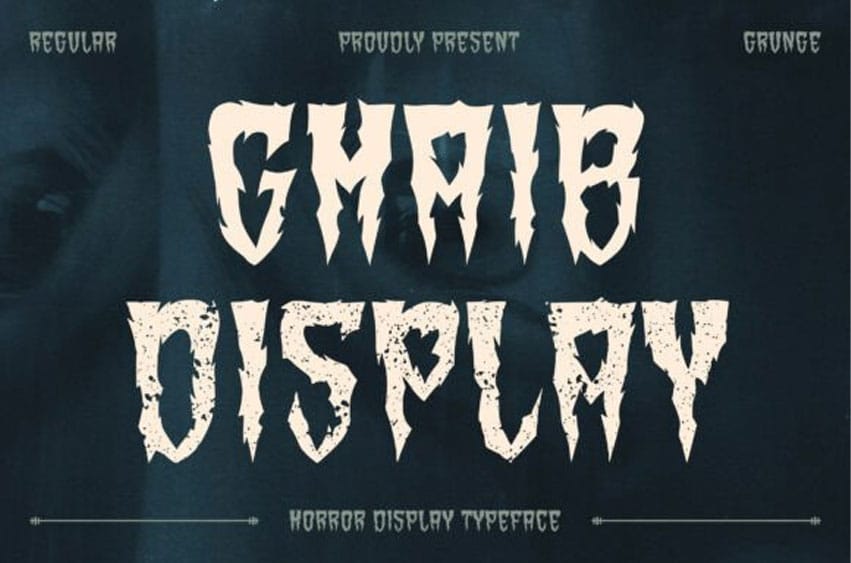
Ghaib Font Emanating from the mysterious depths of the unseen world and whispered legends, GHAIB takes form. As a horror typeface, this chilling font unearths an enchanting ambiance, intertwining mystique, haunting aura, and spine-tingling delight with every character. Carved from the very essence of the spectral realm, GHAIB’s letterforms are sharp, robust, and jagged, resonating with the gripping allure of the secretive darkness.
GHAIB is more than a mere collection of characters; it’s a unique visual journey, a vortex pulling the beholder into a cold, subtly disturbing, and fascinatingly ominous atmosphere. The profound variations in this font: Regular – solid and poignant, ideal for casting intense and remarkable impressions. Grunge – textured, crackled, and vintage, imitating age-old inscriptions resilient against the ravages of time and dust.
The chilling appeal of GHAIB is ideally suited to a galaxy of gothic, horror, and Halloween designs, mysterious narratives, and dark fantasy realms. Utilize this chilling font to breathe life into horror film posters, engrossing mystery book jackets, mystically-tinged logo designs, ethereal Halloween events, and other shadowy merchandise. Unleash the power of GHAIB, and witness the uncanny atmosphere wrapping itself around your designs, causing shivers to race down one’s spine at the mere sight.
With the Ghaib Display Font, you’re not merely putting forth text. Instead, you’re invoking an atmospheric specter, allowing your designs to whisper uncanny tales from the shadows, reviving them, even in the absence of light.